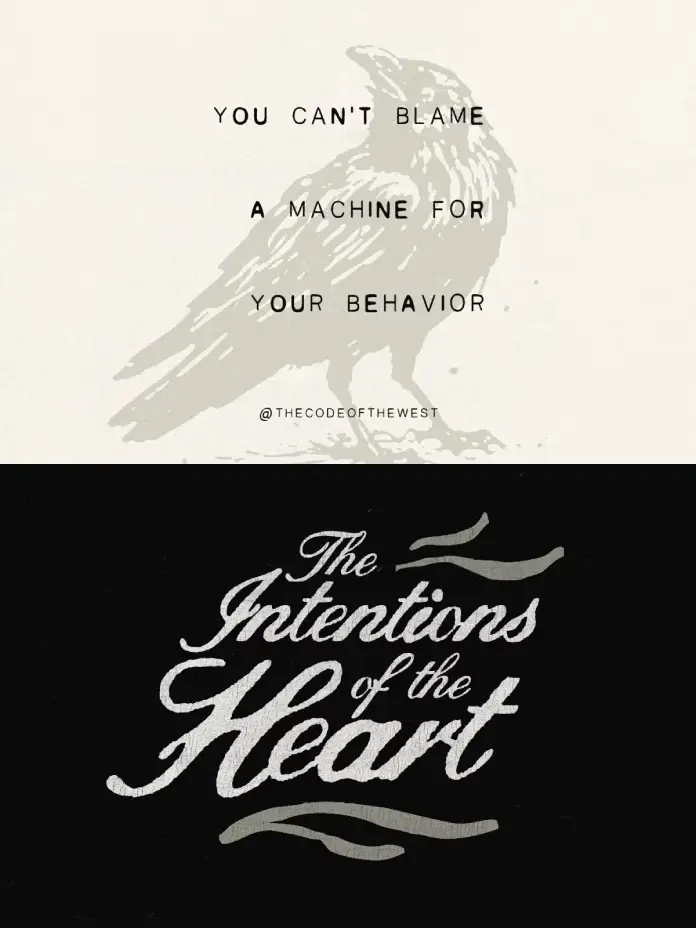
Script fonts are everywhere. Most of them feel the same — elegant loops, polished curves, and a kind of manufactured warmth that looks good in a mockup and says absolutely nothing in real life. Onehart Script and Sans, designed by The Branded Quotes, is a different proposition entirely. It doesn’t chase refinement. Instead, it leans into imperfection with real purpose, and that distinction matters more than it might seem at first glance.
The Onehart script and sans font duo draws its visual language from something tactile and cultural — DIY screen-printing on ripped denim. That’s not a metaphor. That’s the literal design brief. The ink bleeds slightly. The line weights shift unpredictably. The letterforms carry the kind of organic inconsistency that only comes from fabric, pressure, and human hands. Digitally refined, but never digitally sanitized. The result is a font duo that feels alive on screen in a way that most typefaces simply don’t.
Typography is having a cultural moment right now. Brands across fashion, music, wellness, and independent retail are moving away from geometric sans-serifs and corporate polish toward something rawer and more expressive. The Onehart font duo lands exactly in that shift. It’s timely not because it’s trendy, but because it speaks to a genuine appetite for authenticity in visual communication.
What Makes the Onehart Script and Sans Font Duo Different From Other Script Typefaces?
Let’s start with what most people notice immediately: the line weight variation in Onehart Script is not a design accident. It’s a structural feature. Traditional calligraphic scripts achieve weight variation through pen angle and pressure. Onehart Script achieves it through something closer to textile printing logic — the way ink transfers unevenly onto fabric, pooling in some places and thinning in others.
This creates what you might call textural rhythm: a visual cadence within a word or phrase that isn’t metronomic but still feels coherent. Each letterform holds its own weight independently rather than following a single stroke-contrast system. The effect is that even a single word set in Onehart Script carries visual interest across its full length. You don’t need elaborate layouts or complex graphic elements to make it work.
Onehart Sans operates differently but complements the script with precision. Where the script is expressive and variable, the sans is grounded. Its defining feature is deliberate line gaps — subtle interruptions in strokes that echo the ink blot aesthetic of the script without replicating its texture. The sans doesn’t imitate the script. Instead, it creates a visual conversation with it. Together, they establish a typographic system that feels complete.
The DIY Denim Aesthetic as a Design Framework
Understanding Onehart means understanding its source material. DIY screen-printing on denim is a specific subculture with its own visual codes. The prints are bold but imprecise. The colors are saturated but not perfectly registered. The overall effect communicates individuality, craft, and a deliberate rejection of mass production values. That’s a rich set of associations to carry into a typeface.
Call this the Craft Authenticity Principle: the idea that designed imperfection, when rooted in a real physical process, reads as genuine rather than gimmicky. Onehart Script passes this test because its irregularities aren’t random noise added in post-production. They reflect the actual behavior of ink on fabric — a behavior that anyone who has ever screen-printed knows intuitively. That grounding gives the font a cultural honesty that purely digital typefaces rarely achieve.
This matters enormously for branding. Consumers in 2025 are extraordinarily good at detecting performed authenticity. A font that looks hand-done but feels factory-made registers immediately as a mismatch. Onehart avoids that trap because the imperfection is structural, not cosmetic.
How to Use the Onehart Script Font in Brand Typography
Onehart Script is remarkably versatile despite its strong visual character. The key is understanding its strengths and not fighting them. The font shines brightest in short-form applications: brand names, taglines, product labels, social media headers, and pull quotes. The organic line weight variation means that even minimal text — two or three words — creates a complete visual statement without requiring additional graphic support.
For brand typography specifically, Onehart Script works particularly well for brands in the following spaces: streetwear and apparel, independent food and beverage, music and entertainment, artisan goods, creative agencies, and lifestyle brands with a strong point of view. These aren’t the only valid use cases, but they represent the territory where the font’s cultural DNA aligns naturally with audience expectations.
Layering Onehart Script in Digital Presentations
One of the more interesting applications The Branded Quotes suggests is layering Onehart Script over digital presentations. This deserves some elaboration because it’s not an obvious use case for a textured script font.